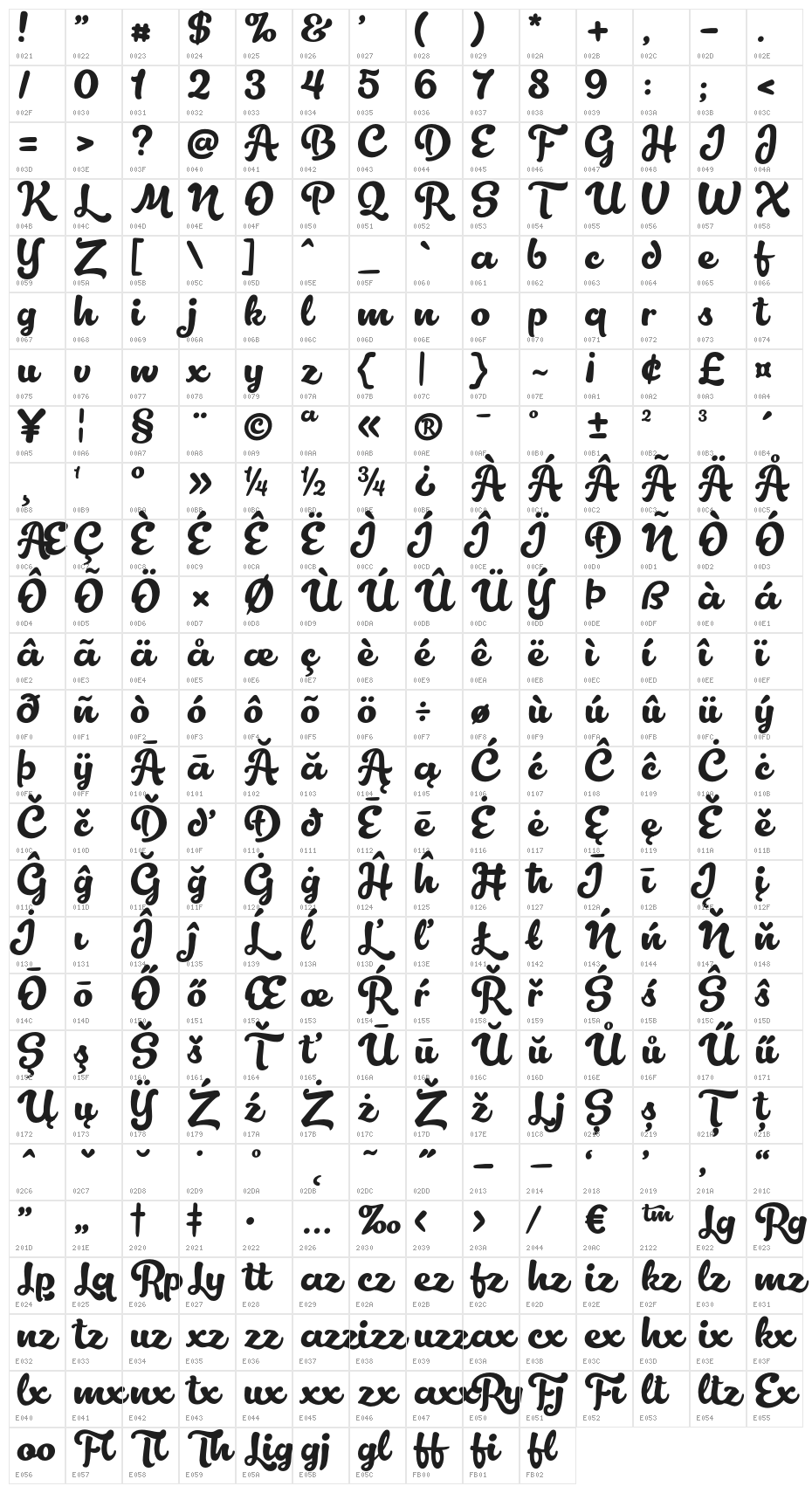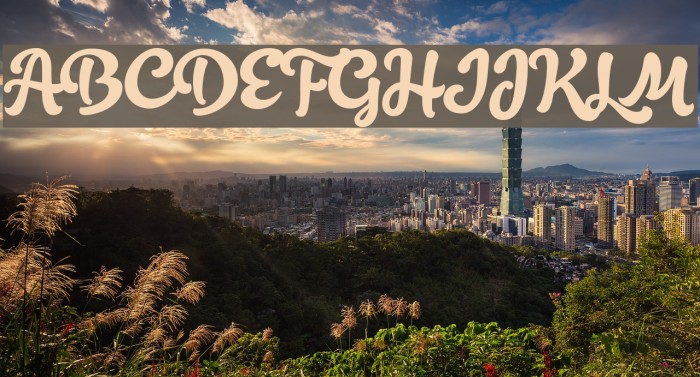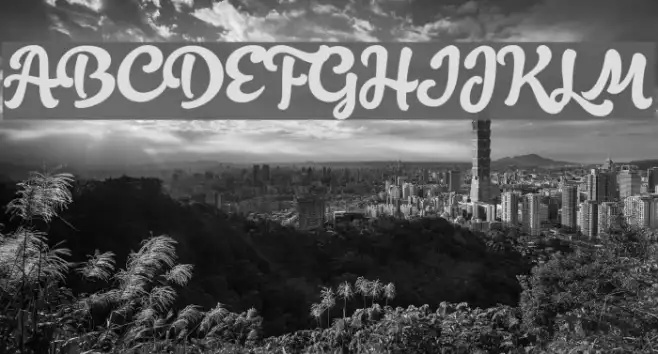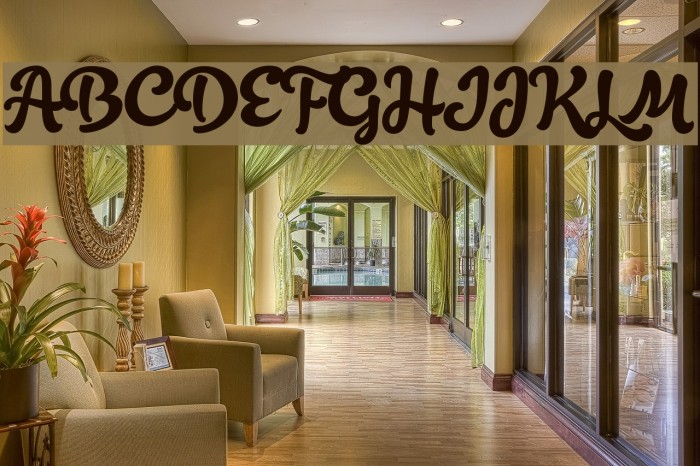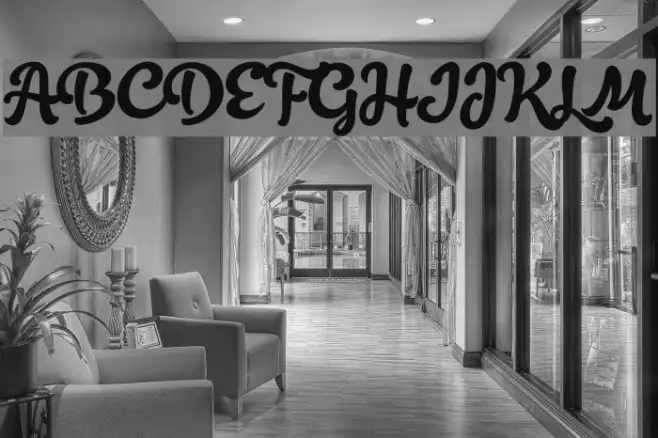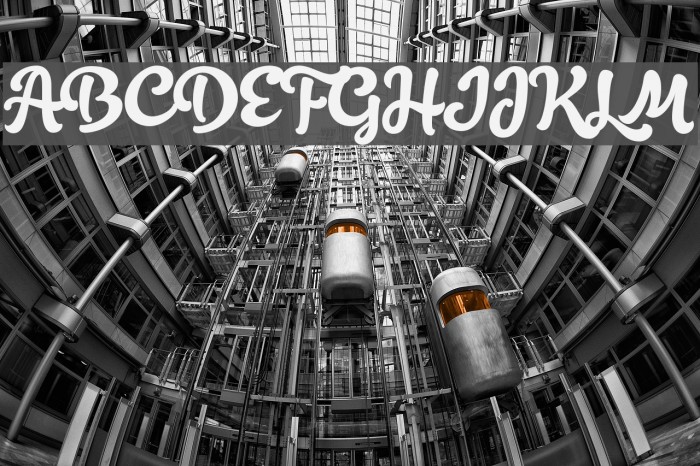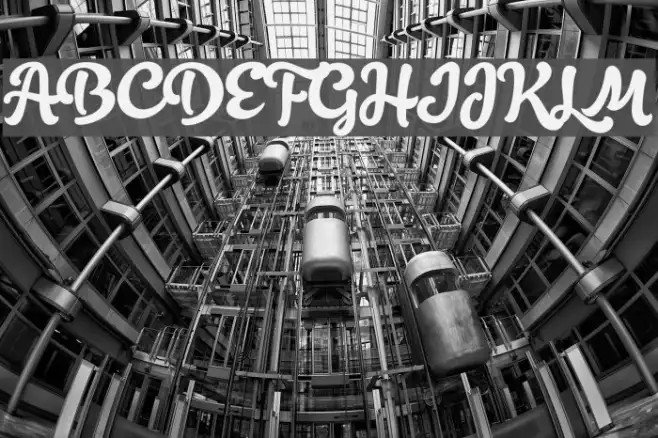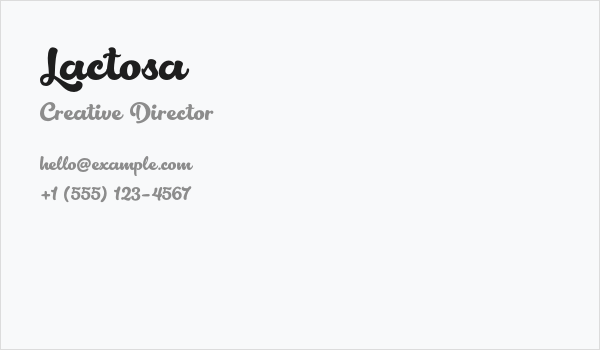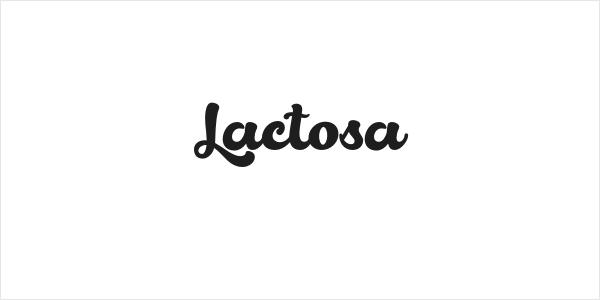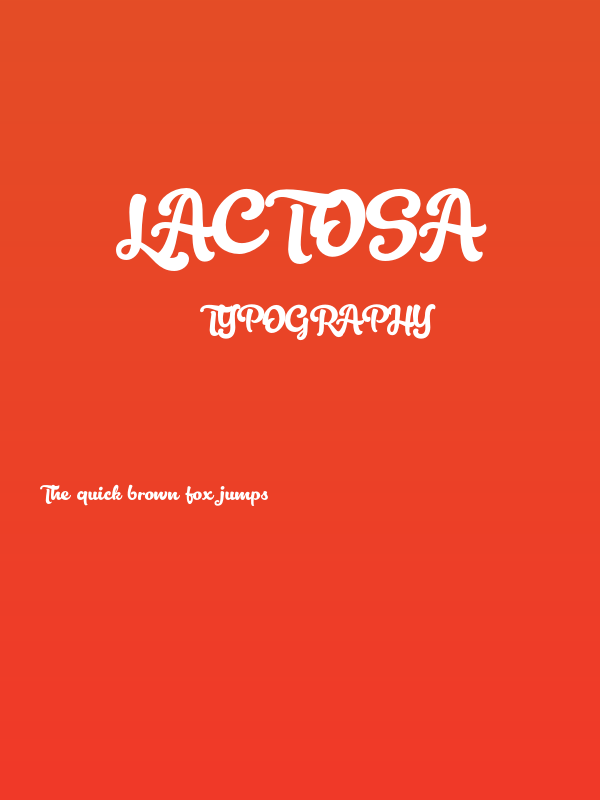
Lactosa Font
Lactosa Description
This font features a bold, cursive style with a playful and energetic vibe. The letters are connected, giving it a flowing, handwritten appearance. The strokes are thick and consistent, providing a strong visual impact. The uppercase letters maintain a uniform height, while the lowercase letters have a slight slant, enhancing the script-like quality. The numbers and special characters follow the same bold and rounded style, ensuring cohesion across all elements. This font exudes a sense of fun and creativity, making it ideal for projects that require a personal touch.
| Proposed Projects | Ideal for greeting cards, invitations, playful branding, and creative posters. |